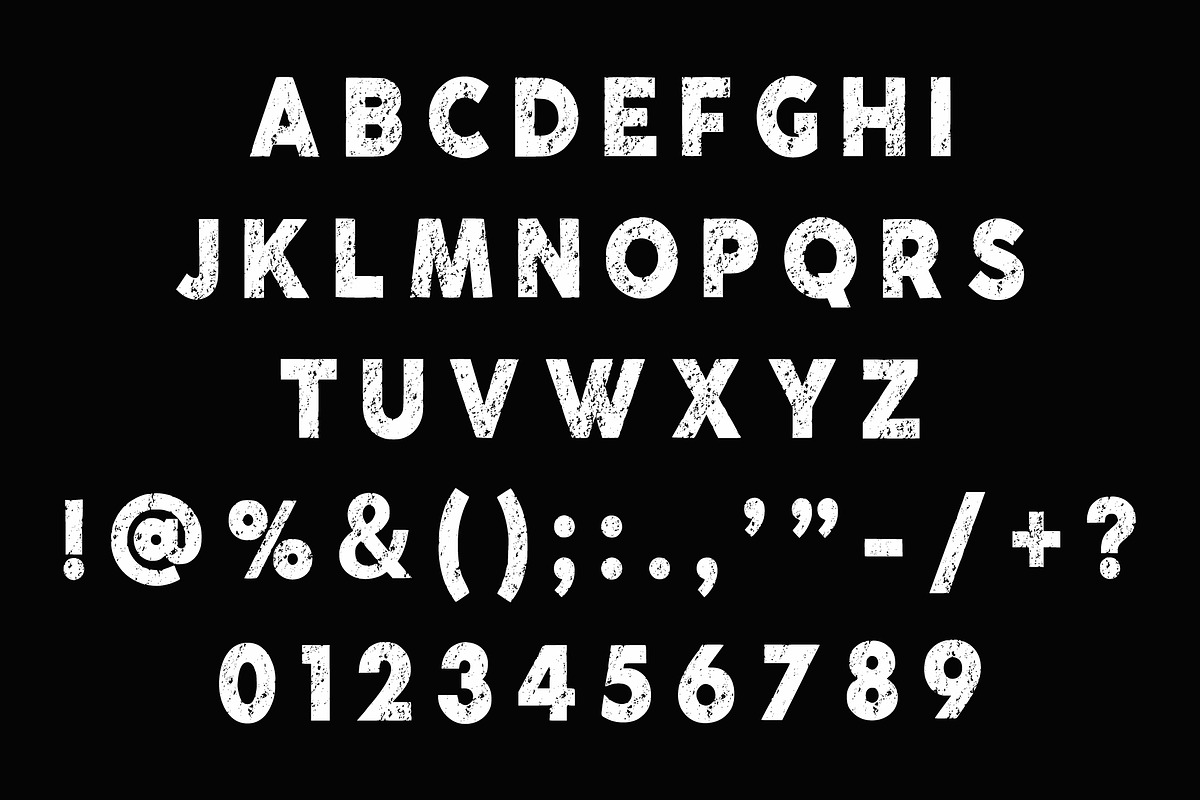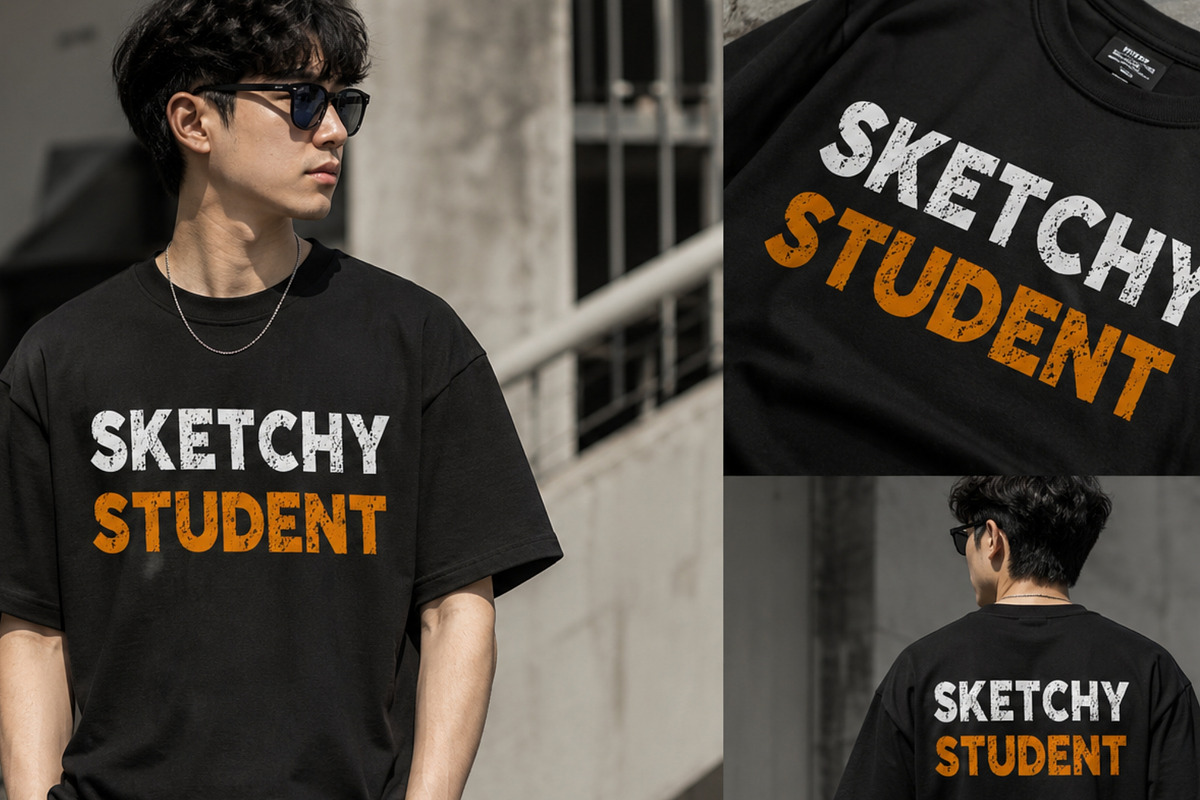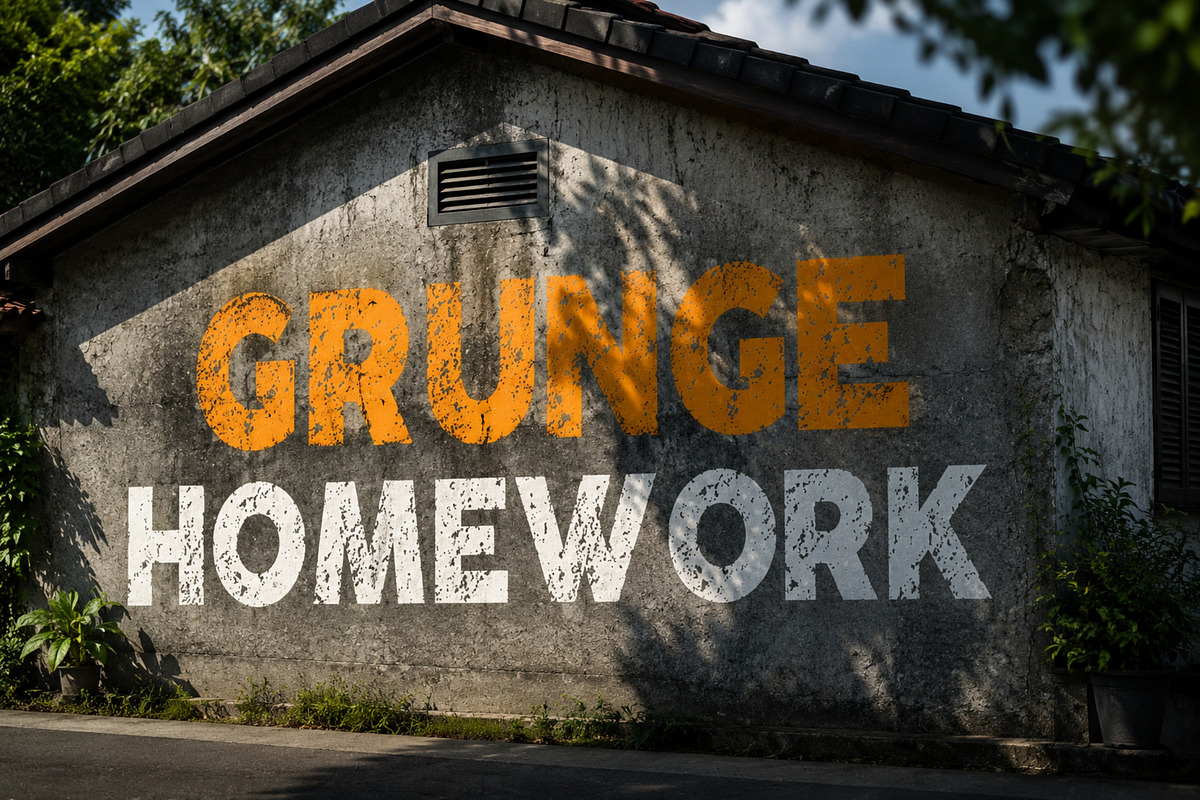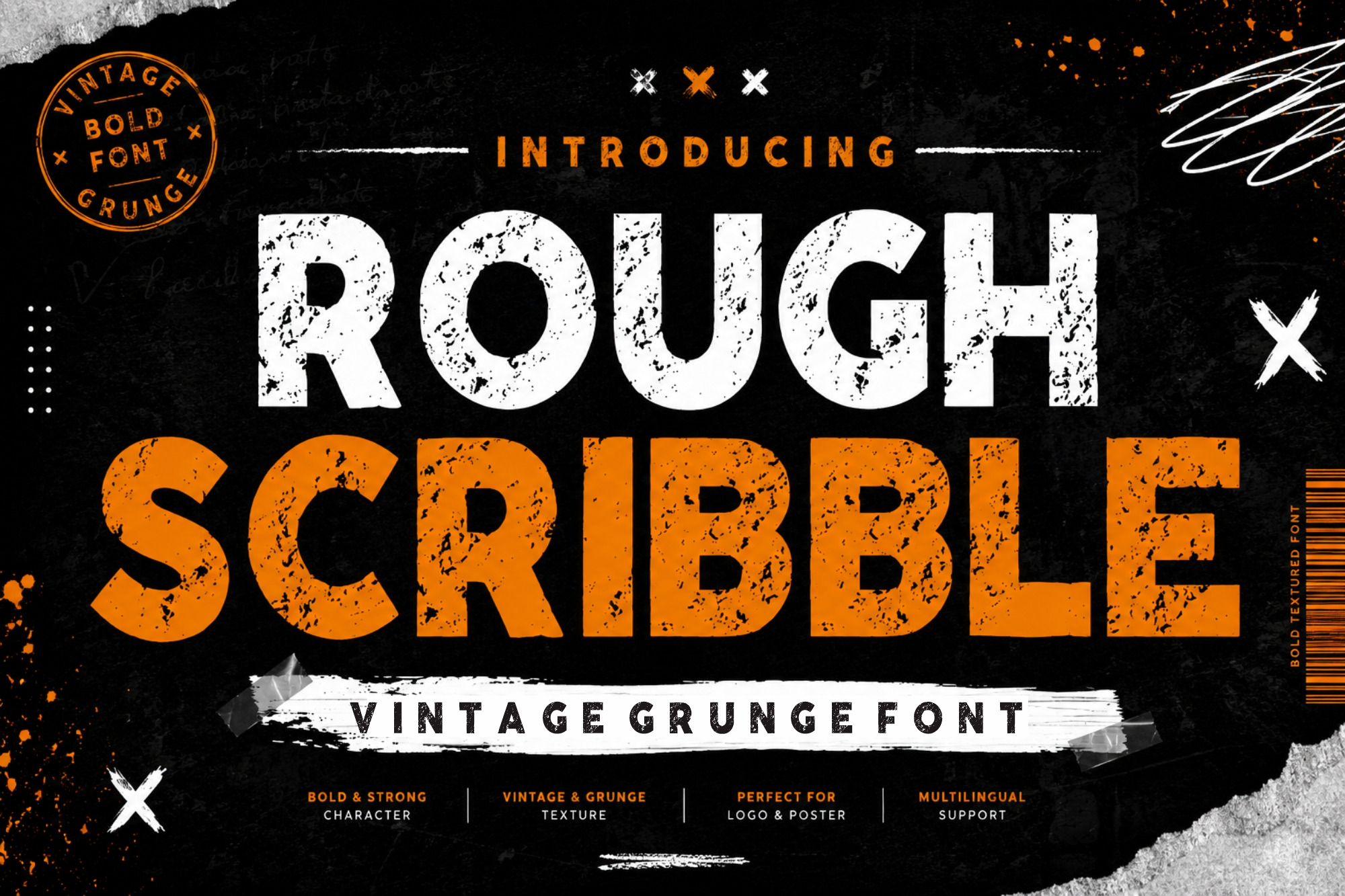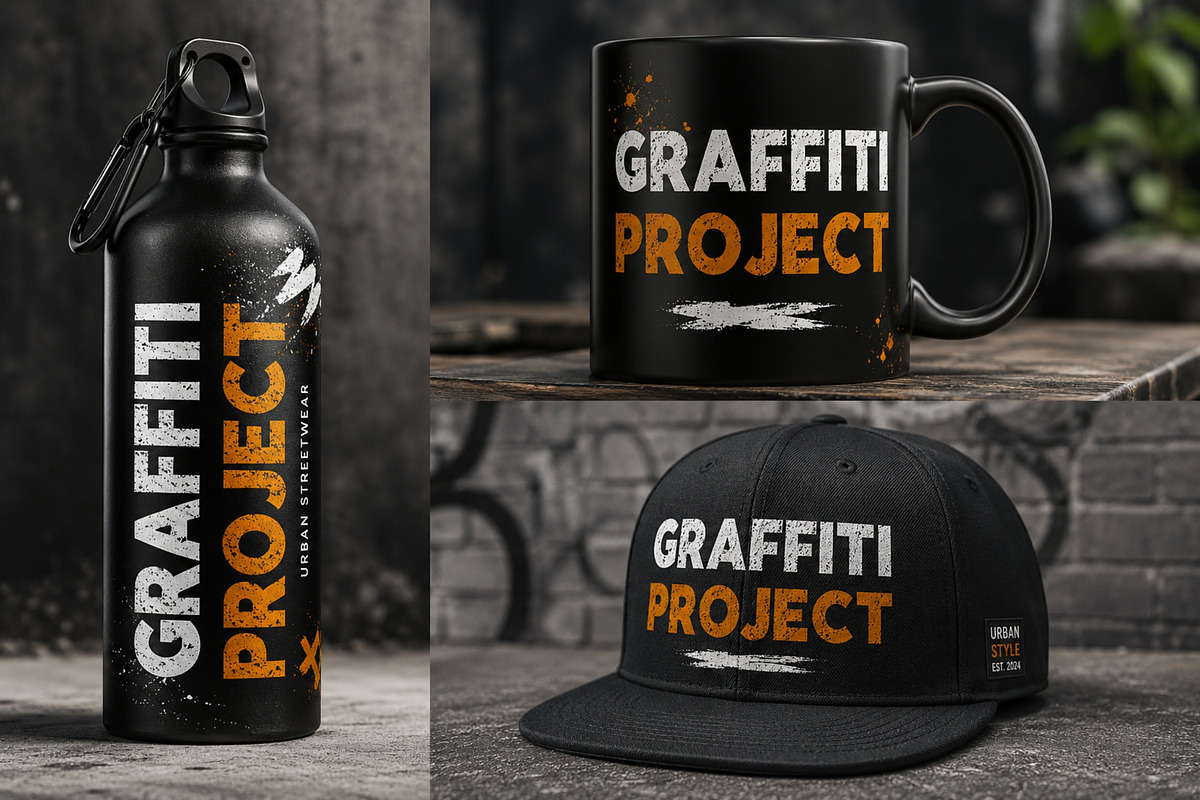
Rough Scribble - Vintage Grunge font
Rough Scribble is a bold and expressive vintage grunge font designed to bring a raw, distressed feel to your projects. With its rugged texture and strong character, this font is perfect for creating eye-catching headlines, posters, logos, and street-style designs.
Inspired by hand-drawn scribbles and worn-out textures, Rough Scribble delivers an authentic grunge aesthetic while maintaining excellent readability. Its bold structure makes it ideal for impactful designs that demand attention.
Add a rough and rebellious touch to your design with Rough Scribble!